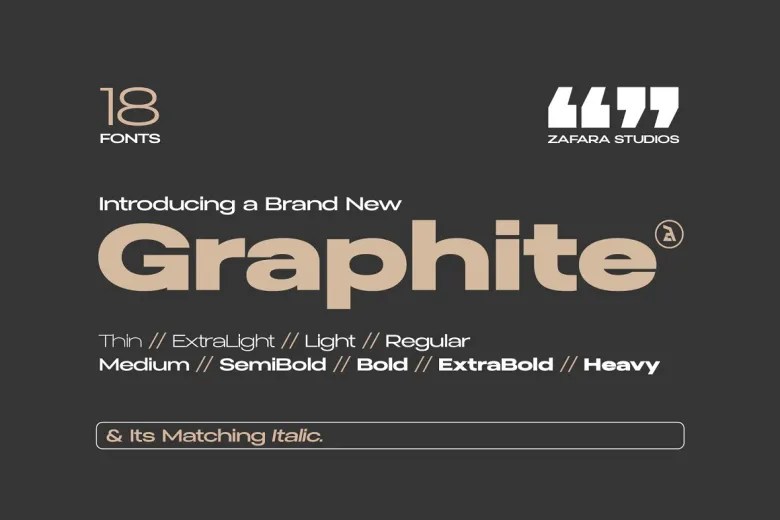
Graphite Font
Graphite is an expansive sans-serif typeface crafted to provide exceptional contrast and visual clarity. Its design achieves a harmonious balance between compactness and expressiveness, making it perfect for titles, headlines, logotypes, and magazines where visibility and readability are key.
Whether you’re working on impactful headlines or striking logotypes, Graphite ensures your content stands out with its clean and bold aesthetic.